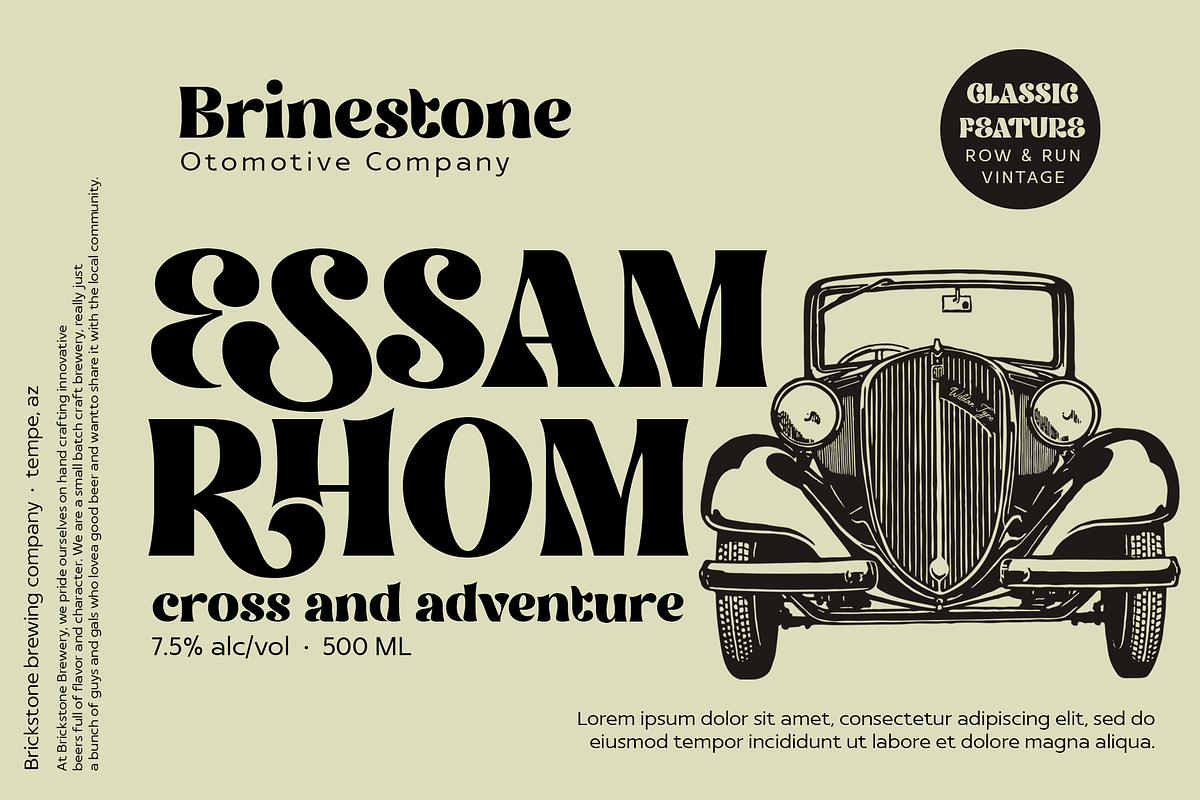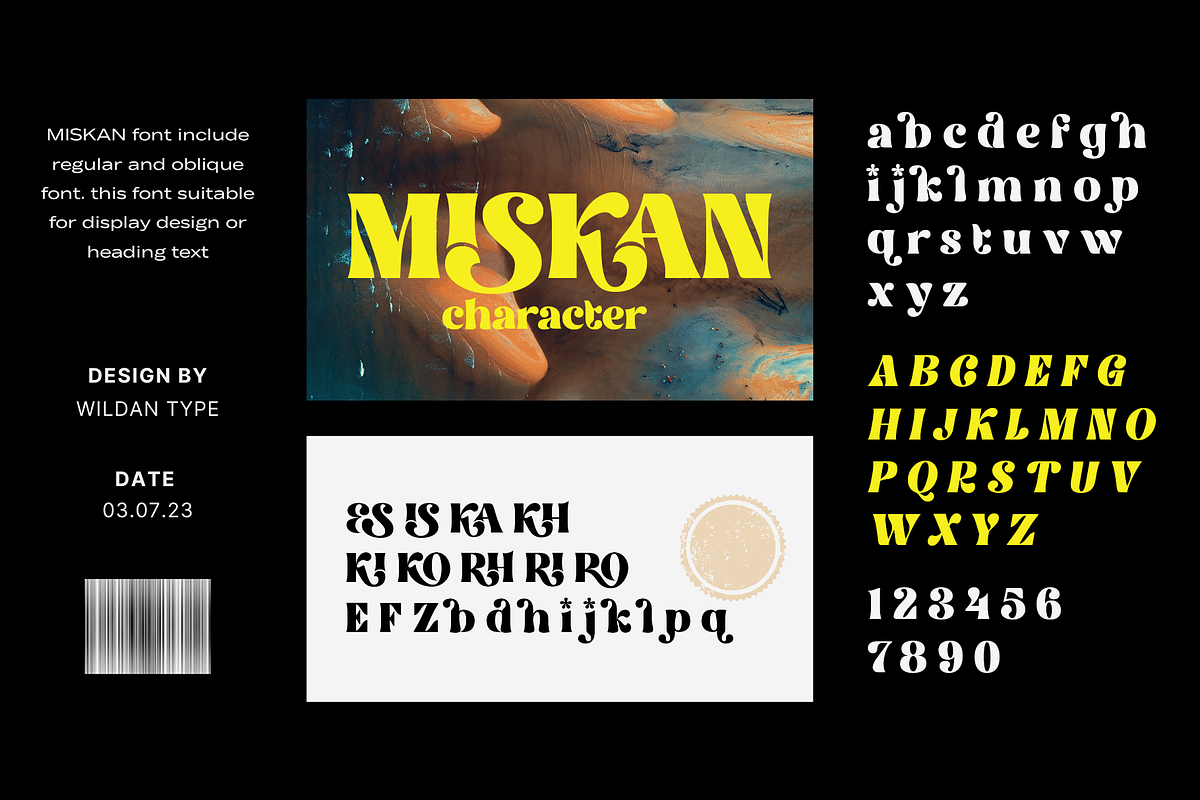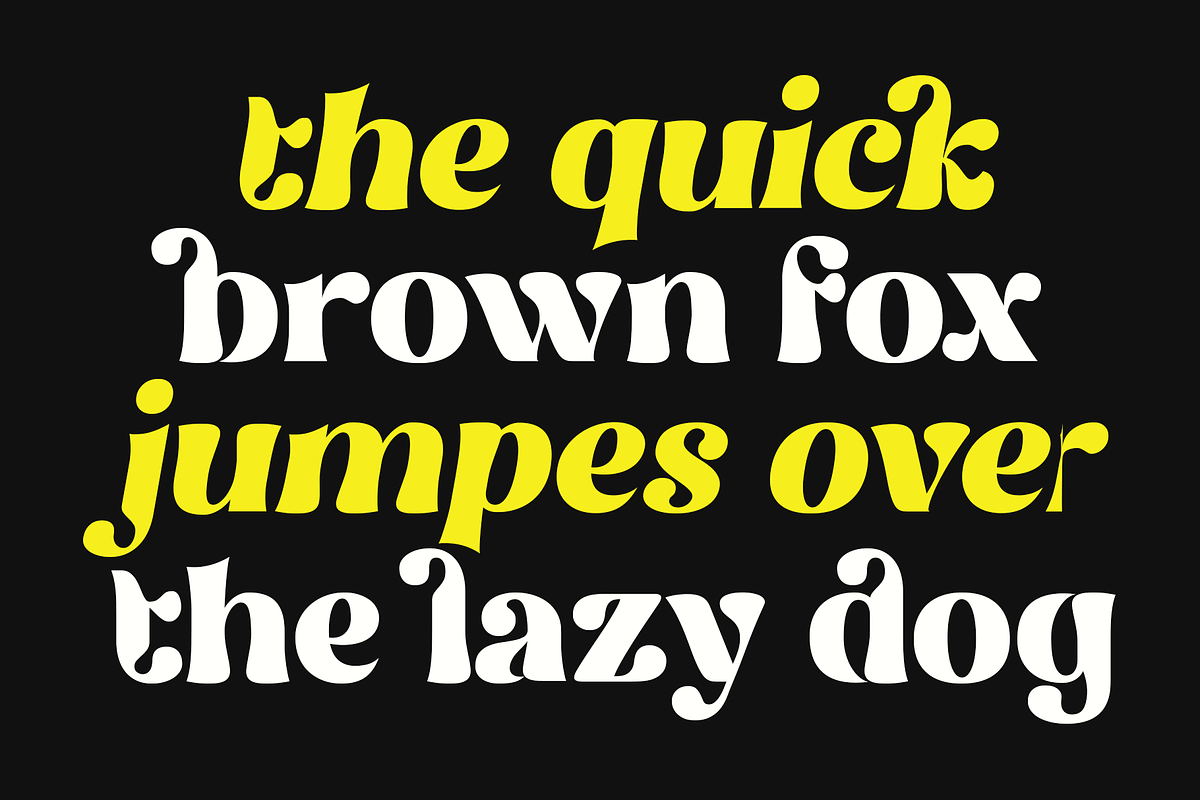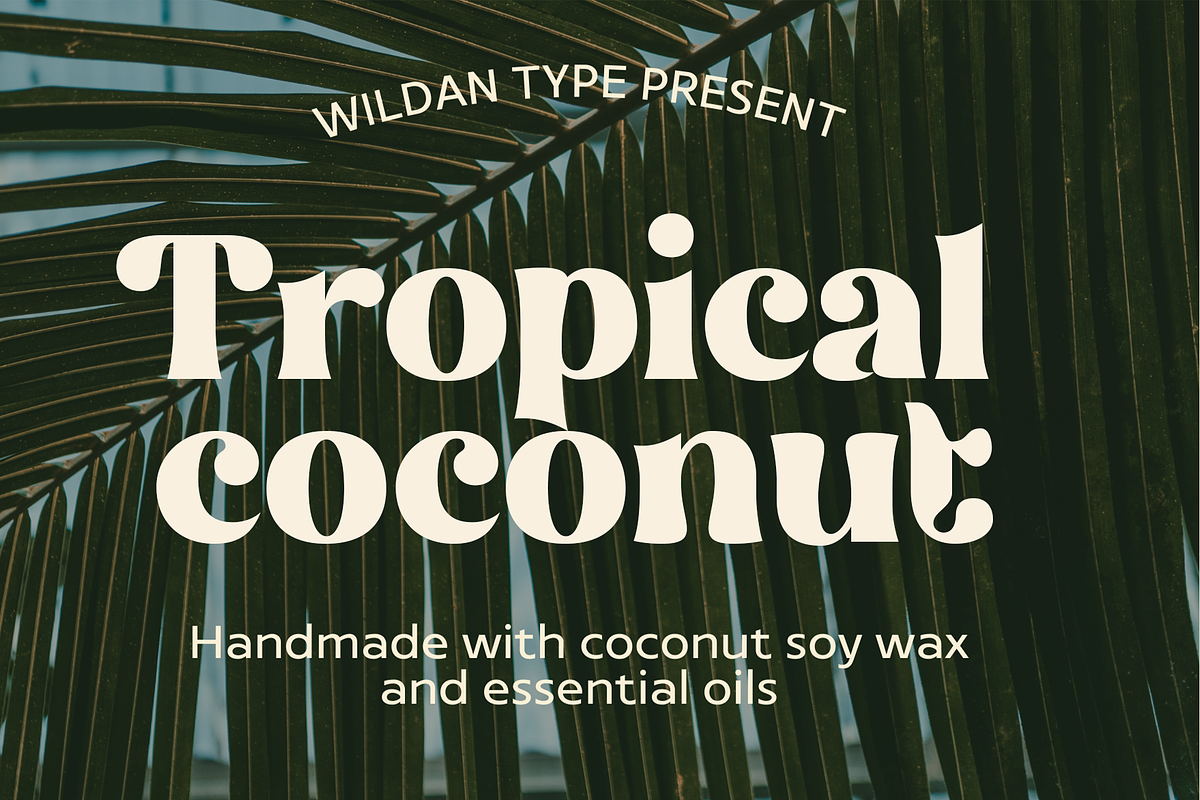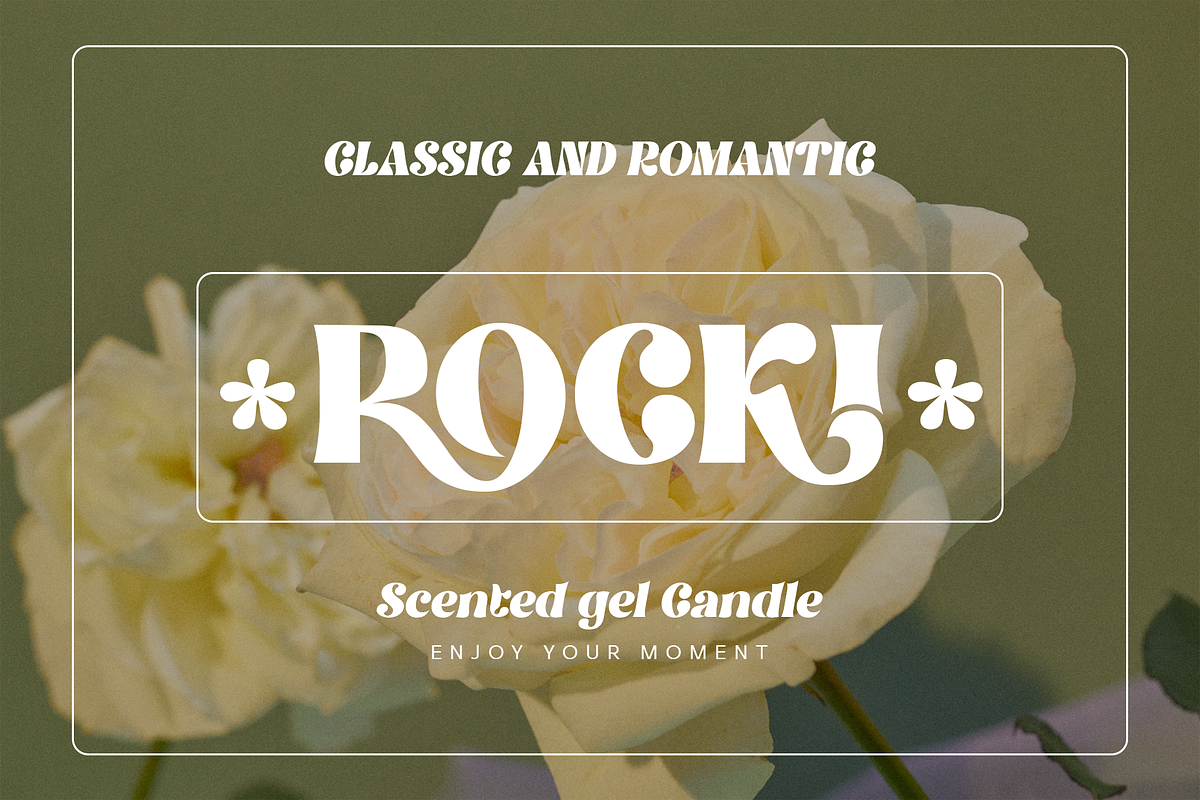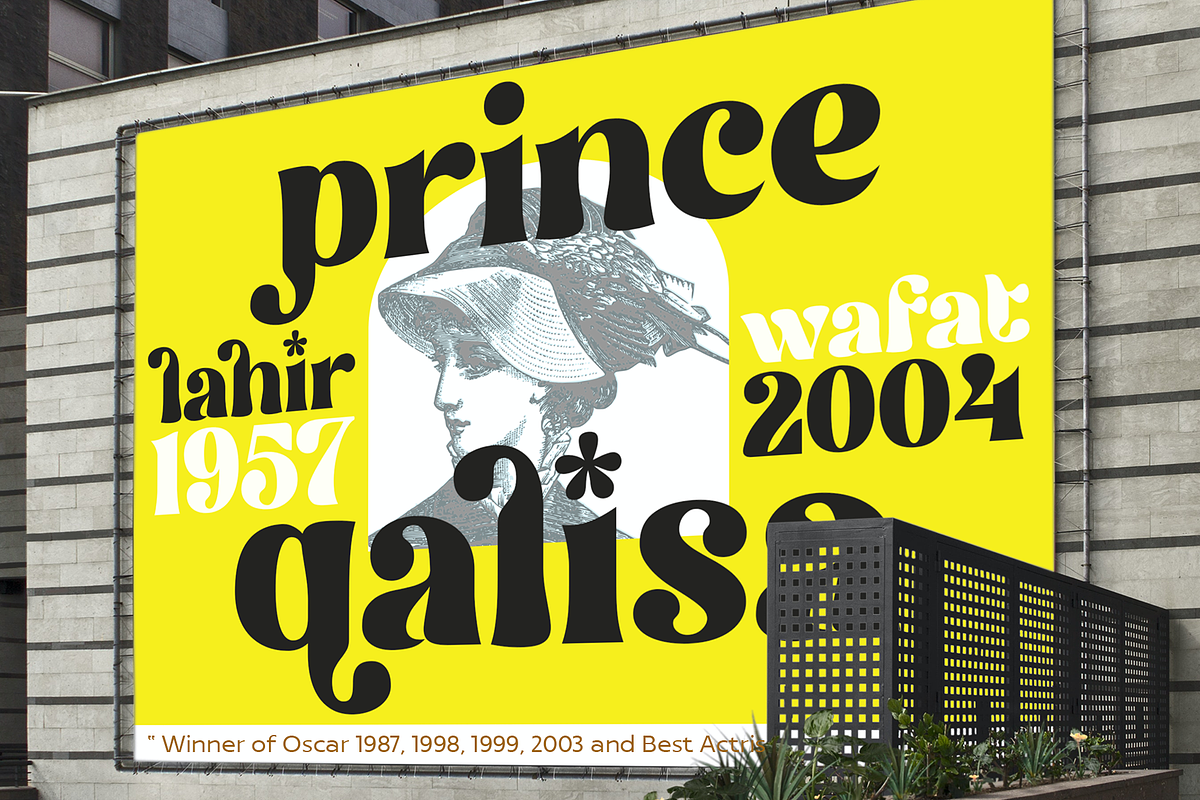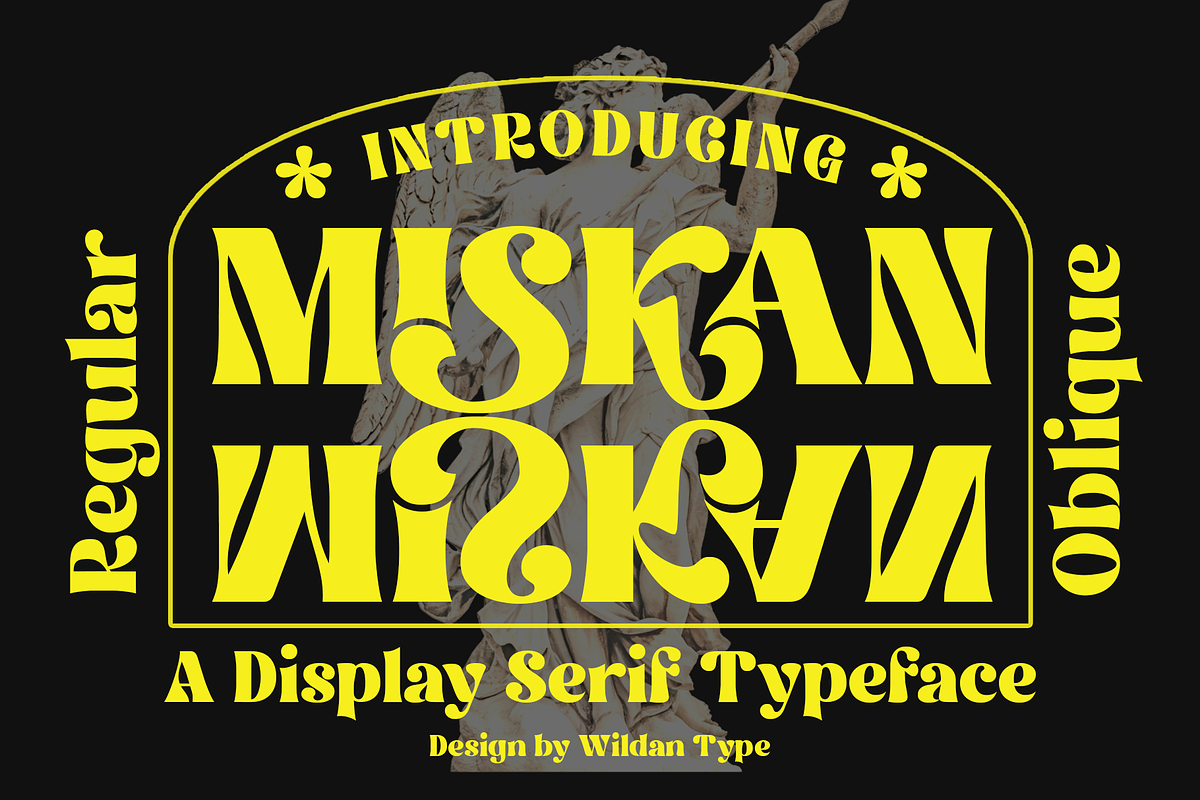
Miskan
Introducing Miskan Font!
Miskan is a display typeface with retro taste. it's groovy, funky, and quirky. It comes with some ligatures as well as titling alternatives. The font supports many languages using the Latin-based alphabet.